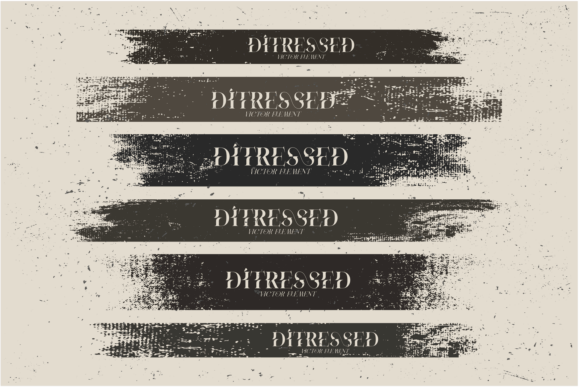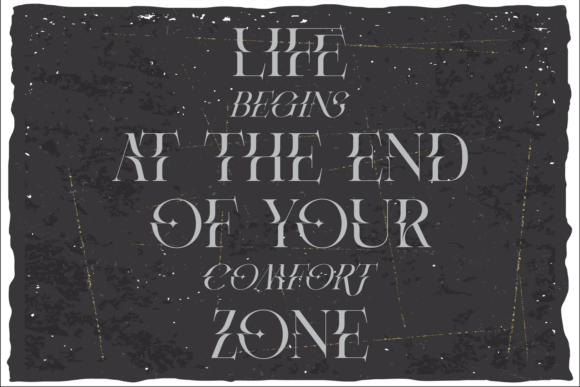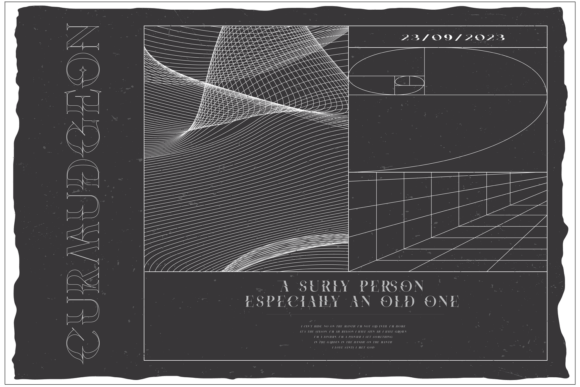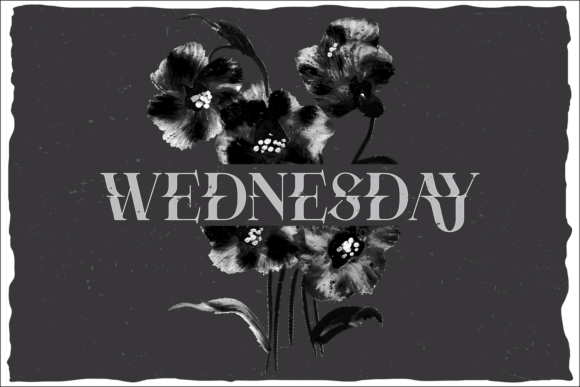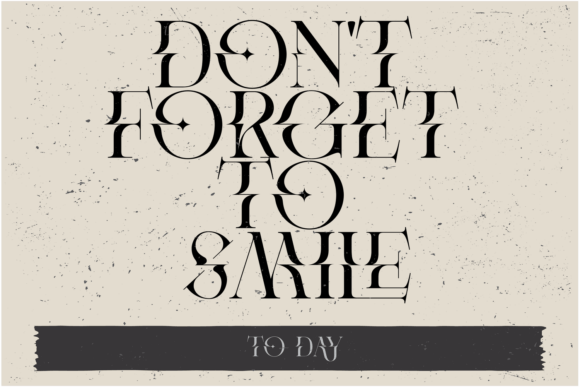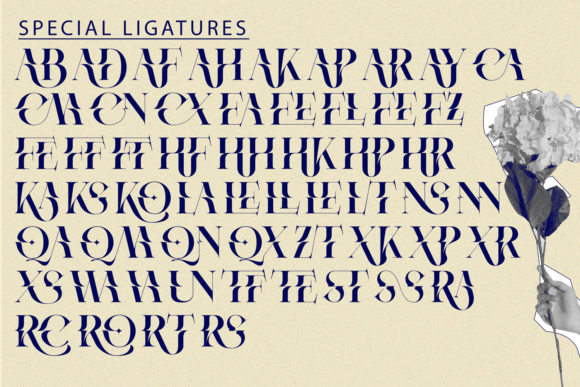
Introduction to Protest Font
Protest is a modern and stylish serif font.
Key Features of Protest Font
Why Choose Protest Font?
Protest Font offers exceptional quality and versatility, making it a valuable addition to your design toolkit. Whether you’re creating for personal projects or commercial use, Protest Font delivers professional results.